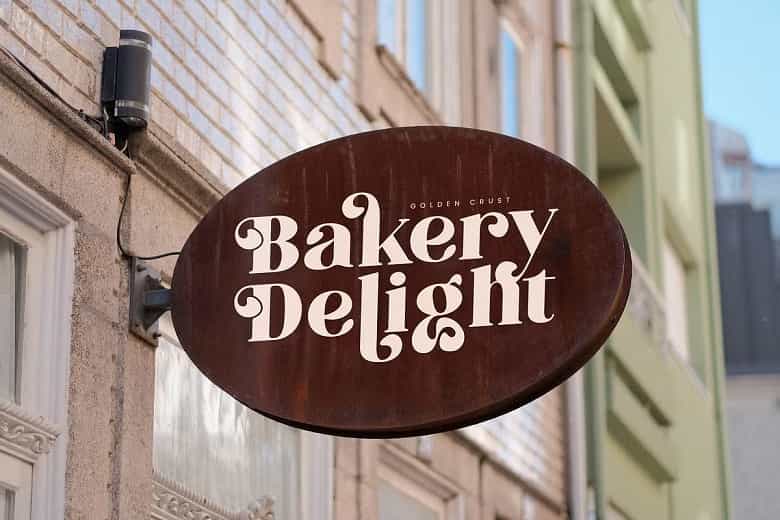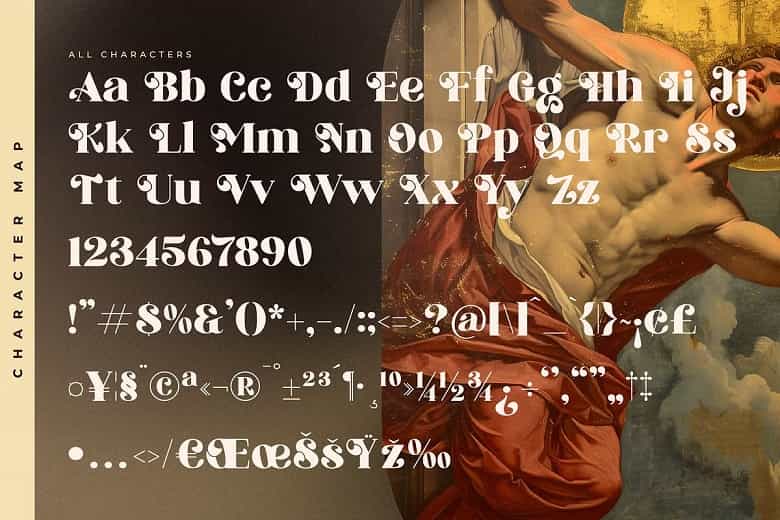
Thelost Magica is a new modern retro serif font that is designed by timelesstype.co. Suitable for any projects such as: logos, branding projects, product packaging, quotes, posters, shopping bags, t-shirts, book covers, name card, invitation cards, greeting cards, special events, and all your other luxury and beautiful projects that need a Luxury Serif touch.